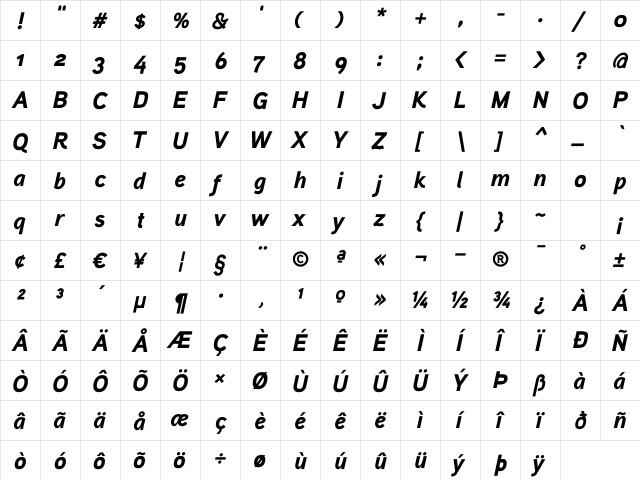
Aaux ProBlack Italic OSF Regular
Design Context for Aaux ProBlack Italic OSF Typeface
Aaux ProBlack Italic OSF takes a measured approach to typography — its balanced proportions and neutral character make it a reliable workhorse for both digital and print work. Its italic angle brings a sense of urgency and motion to the letterforms.
Pro Tip: Try Aaux ProBlack Italic OSF for annotation and caption copy alongside an upright companion — the contrast in angle creates a dynamic but ordered typographic system.